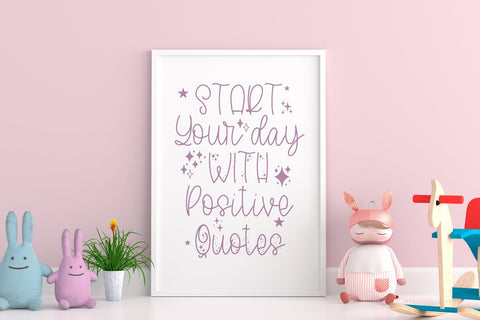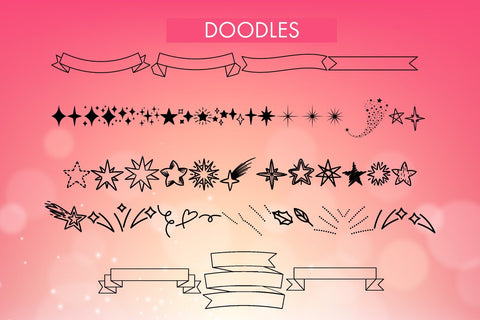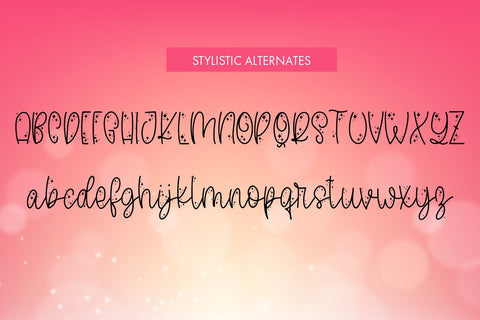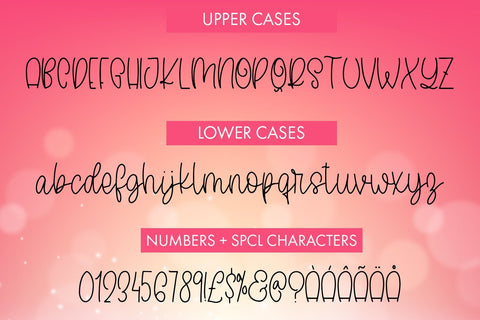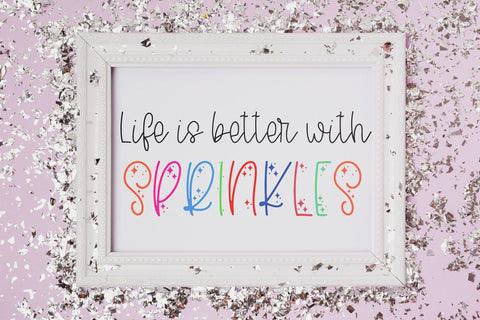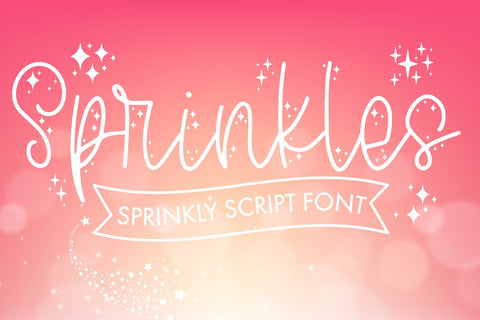
Sprinkles - Script Font With Doodles
Sprinkles is a sprinkly and sparkly handwritten script font. This font will be perfect to use for all your upcoming quirky and fun DIY:s or other quote based DIY:s. Sprinkles Doodles includes over 50 different doodles to match the font. The font includes letters without sprinkles and letters with sprinkles as stylistic alternates.
Sprinkles can be used for anything such as T-Shirt designs, phone cases, greeting cards, invitations, mugs and so much more! Be creative but most importantly have fun!
- Sprinkles - Comes with Uppercase A-Z and lowercase a-z letters, 0-9 numbers, stylistic alternates, ligatures, limited punctuation and supports Western European Languages
- Sprinkles Doodles - Comes with Doodles which you can find via Uppercase A-Z and lowercase a-z letters